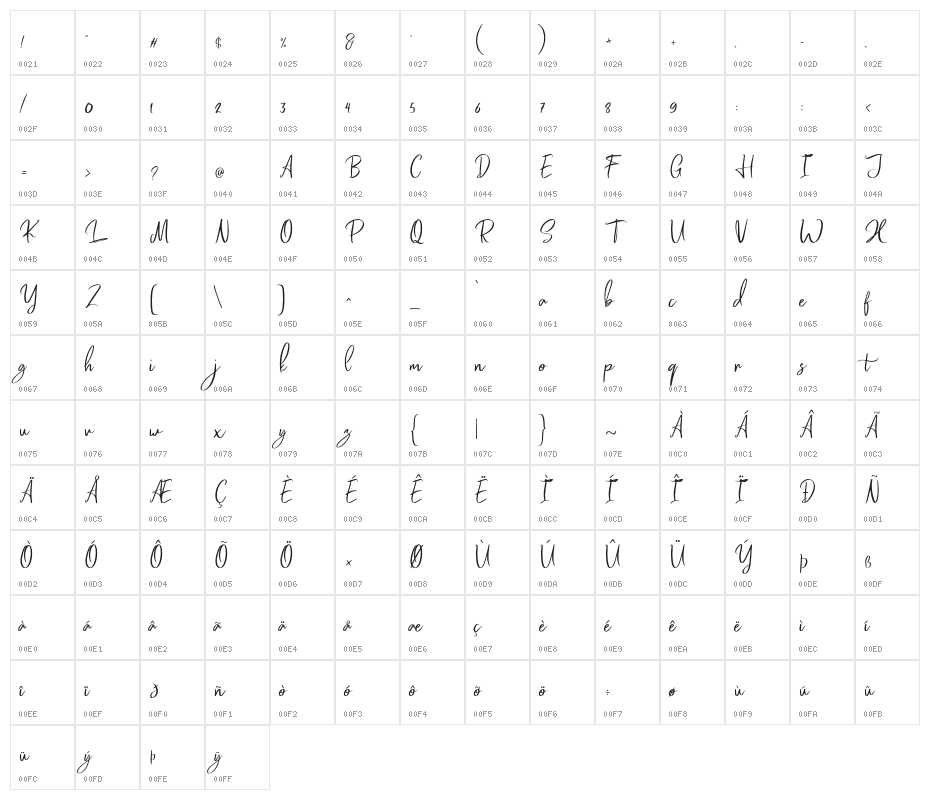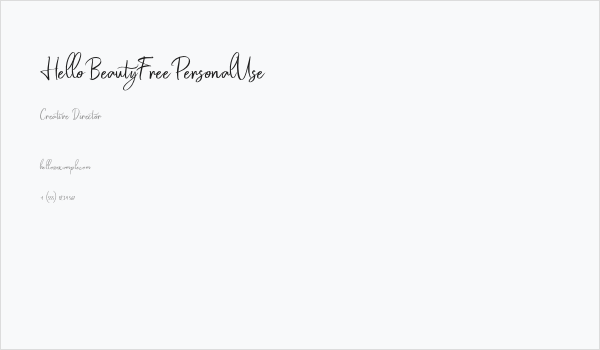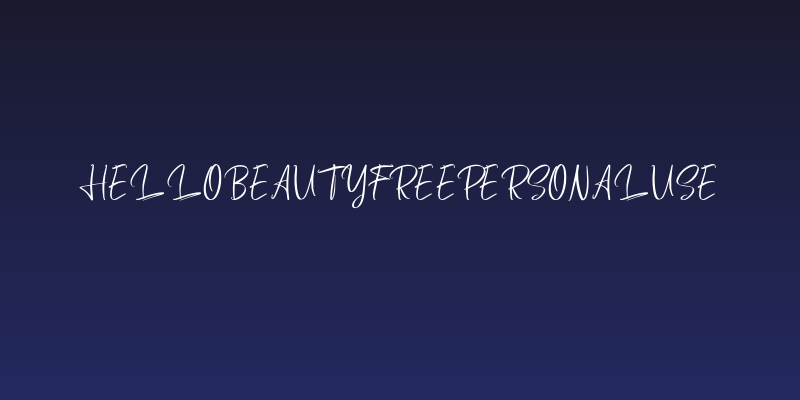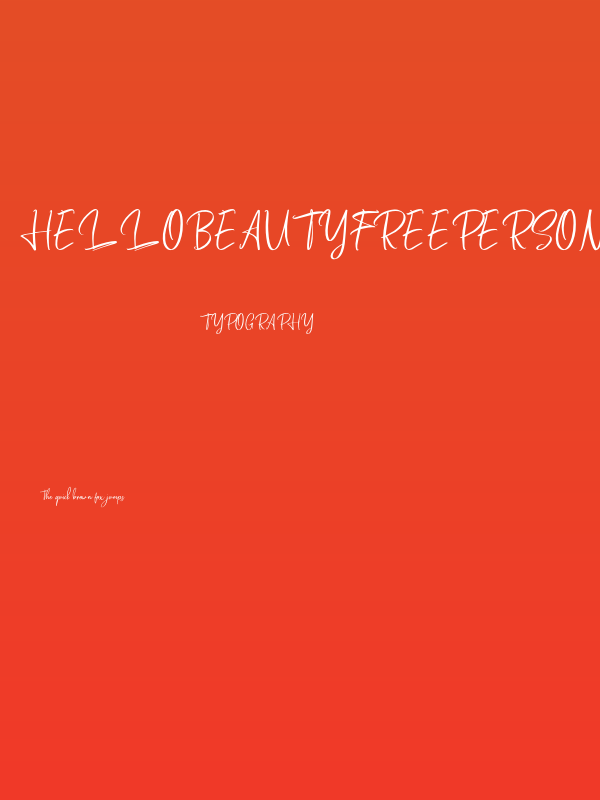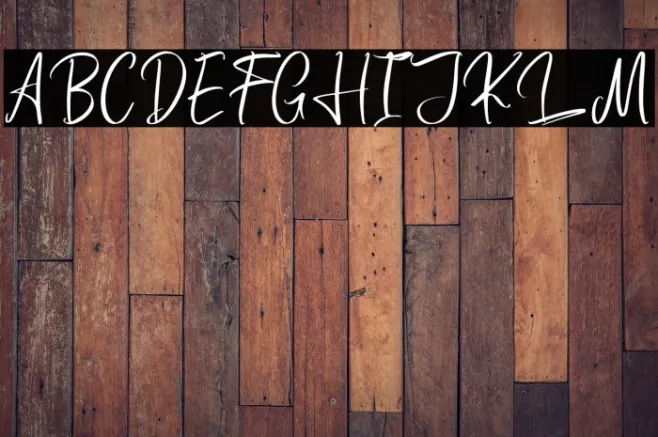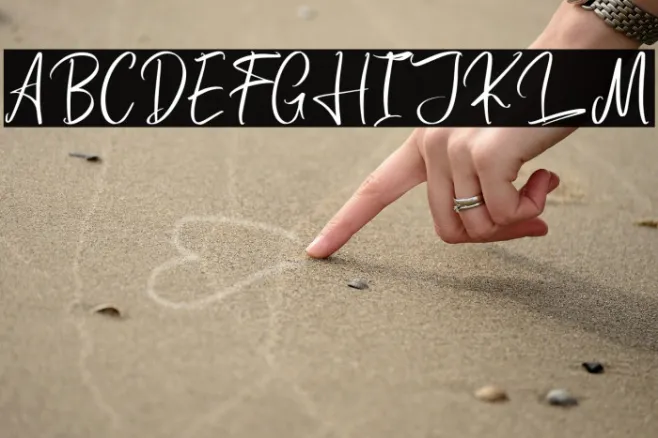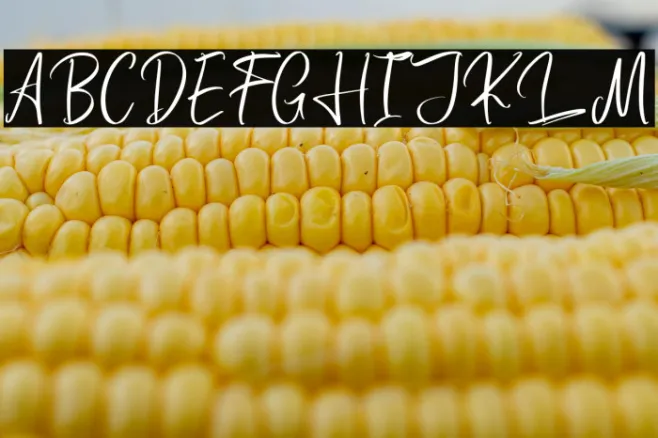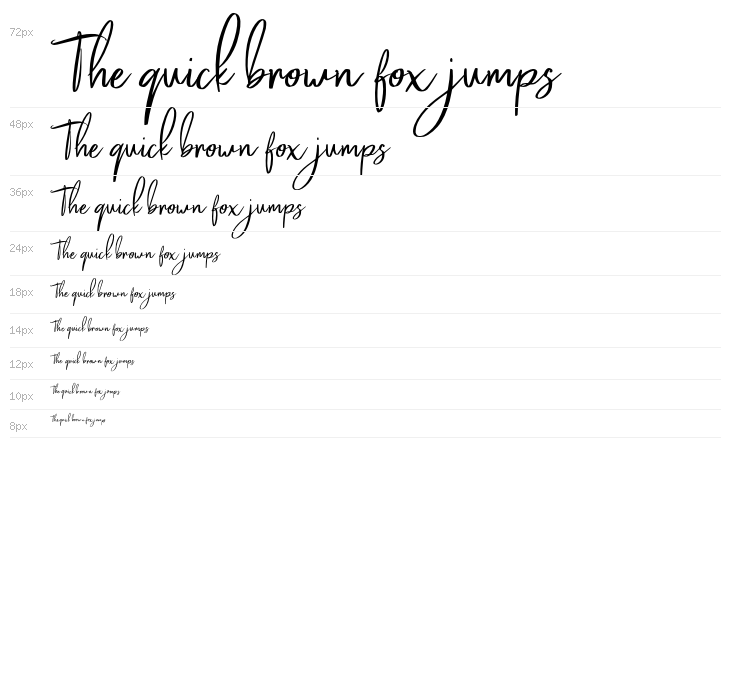
HelloBeautyFreePersonalUse Font
HelloBeautyFreePersonalUse Description
This font exudes a playful and elegant script style, characterized by its fluid and connected letterforms. The uppercase letters are tall and slightly slanted, giving a sense of movement and grace. The lowercase letters maintain a consistent flow, with some characters featuring unique loops and swashes that add a decorative touch. The numerals are styled to match the script's overall aesthetic, maintaining readability while complementing the letterforms. Special characters are thoughtfully designed to integrate seamlessly with the alphabet, enhancing the font's versatility. This font is ideal for projects that require a personal and artistic touch.
| Proposed Projects | Ideal for wedding invitations, greeting cards, branding, and social media graphics. |